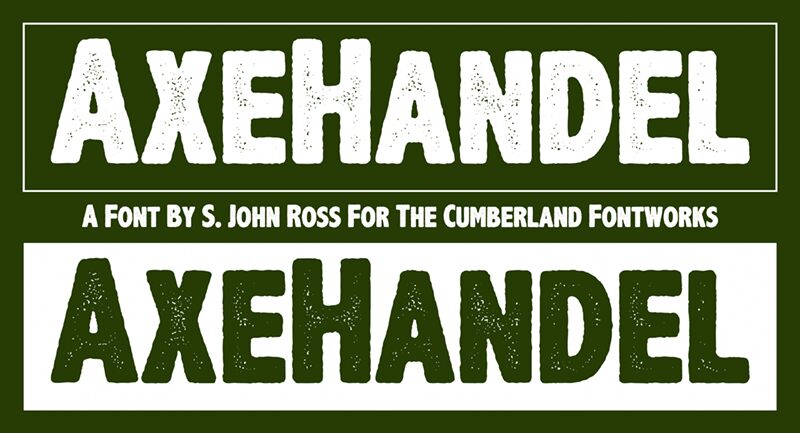
Axe Handel by S. John Ross is a free distressed sans serif display font with oversized, tightly set capitals and an uneven hand-cut silhouette. Thick strokes bulge and pinch from letter to letter, and scattered flecks break up the otherwise solid forms.
Concert posters are its strongest territory. The battered weight also suits punk album covers, skate merchandise, and branding for independent music events. It is most convincing when the lettering needs to look as physical and unruly as a screen-printed gig title.